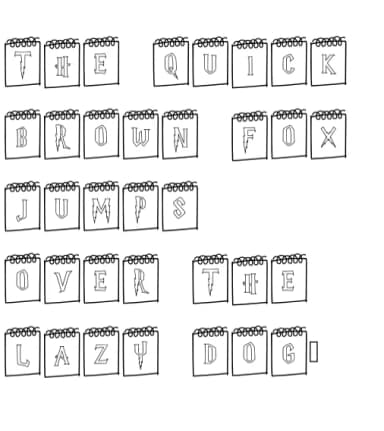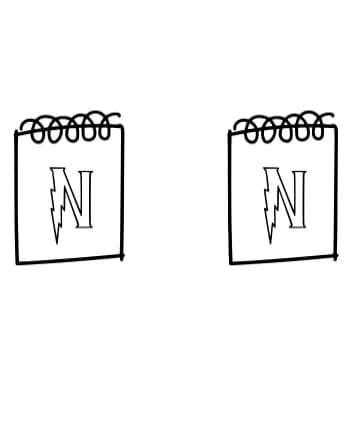
Note-worthy by Happy Bamboo is a dingbat font that cleverly embeds each character inside a tiny calendar shape, bringing a playful organizational spirit to everything from planning pages to handmade craft projects. This cute typeface balances decorative charm with genuine function, making it particularly useful for creating teaching worksheets, birthday party invitations, DIY scrapbooking layouts, and artisan product labels where visual appeal counts as much as legibility.
What makes this font special is how it transforms mundane documents into visually engaging pieces without sacrificing clarity. Teachers designing classroom materials, homeschool families creating lesson plans, and craft enthusiasts building custom mug designs all find practical value in its clean, readable letterforms. Even at smaller sizes, the individual characters maintain excellent legibility, which is crucial when working with first-grade worksheets, coloring book pages, or detailed planning templates where every element needs to function well.
Note-worthy Font is a versatile dingbats font that works for both headings and body text. Pair it with a contrasting sans-serif or serif font to add visual interest and a clear distinction between titles and body copy.
Note-worthy Font
by Happy Bamboo